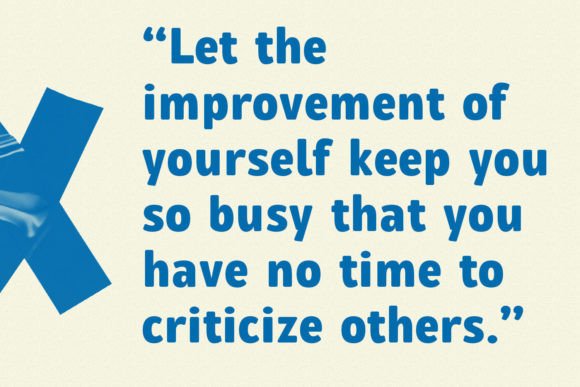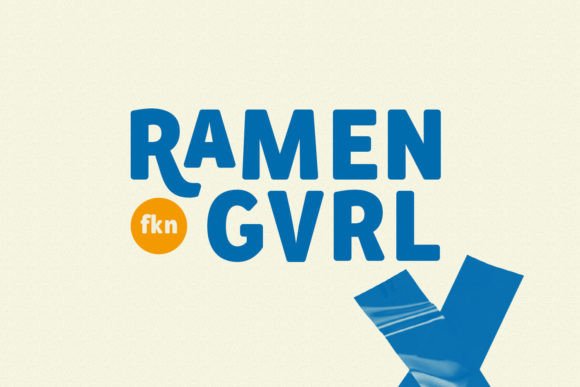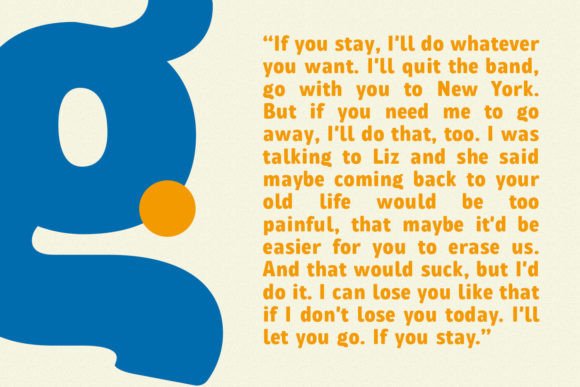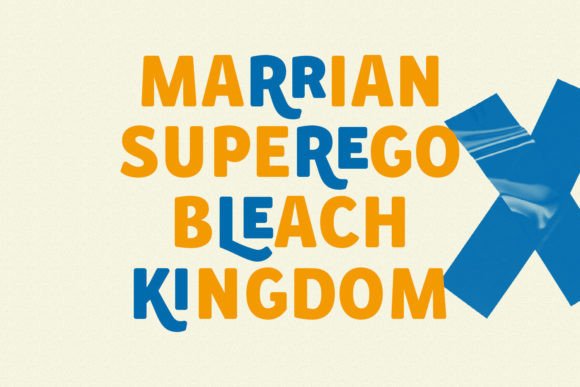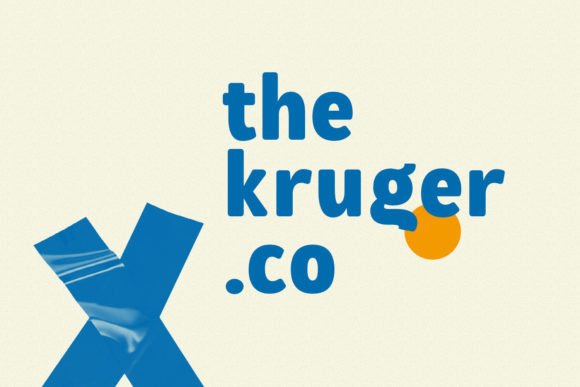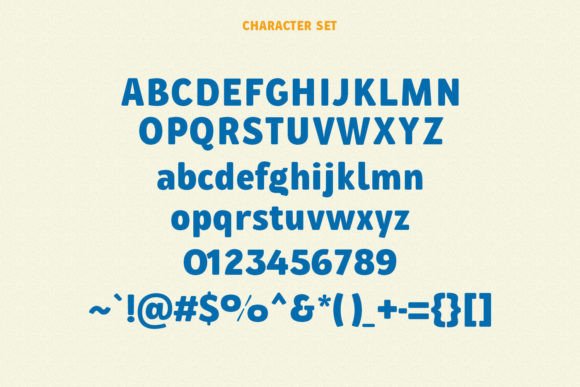
Introduction to Le Greg Font
Le Greg is an elegant and modern sans serif font.
This minimalist and clean vibe can easily apply to your favorite designs such as book covers, magazines, social media posts, invitations, and so much more .
Key Features of Le Greg Font
Why Choose Le Greg Font?
Le Greg Font offers exceptional quality and versatility, making it a valuable addition to your design toolkit. Whether you’re creating for personal projects or commercial use, Le Greg Font delivers professional results.